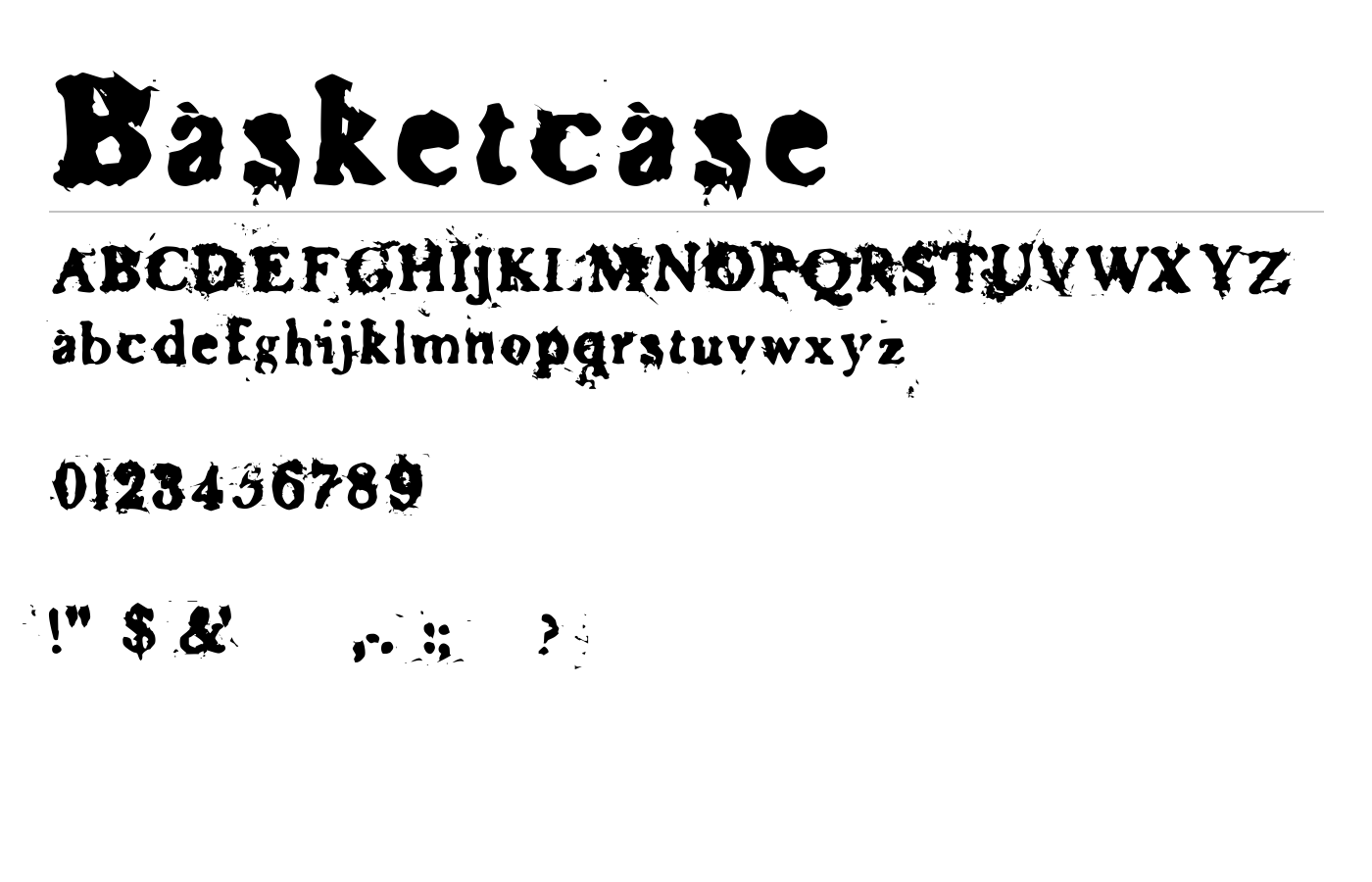
Basketcase is a bold, distressed serif font with a rough, grungy texture that gives it a rebellious and edgy personality. Its irregular shapes and heavy weight make it perfect for eye-catching headlines, posters, and designs that want to convey a raw, vintage, or underground vibe. This font works well in creative projects where a bold statement and unique character are desired.
Basketcase Font
About Basketcase Font